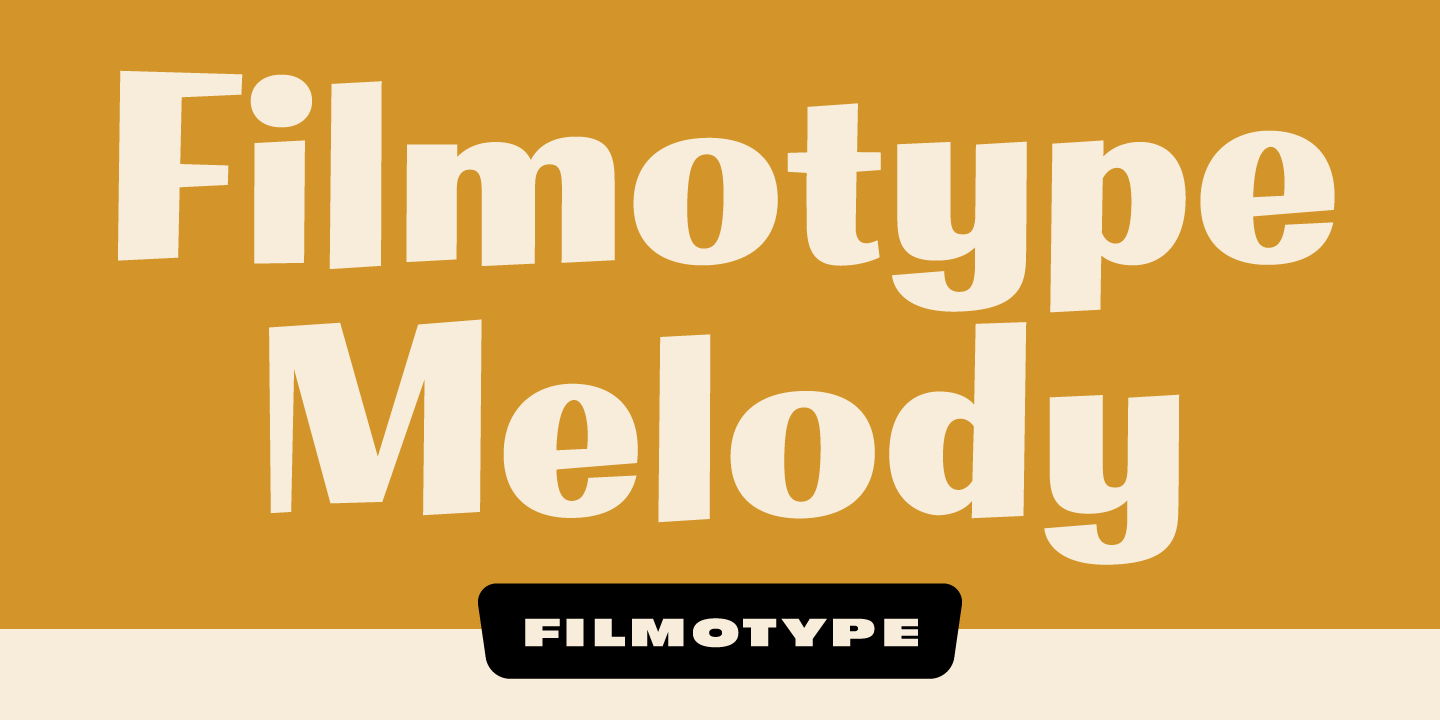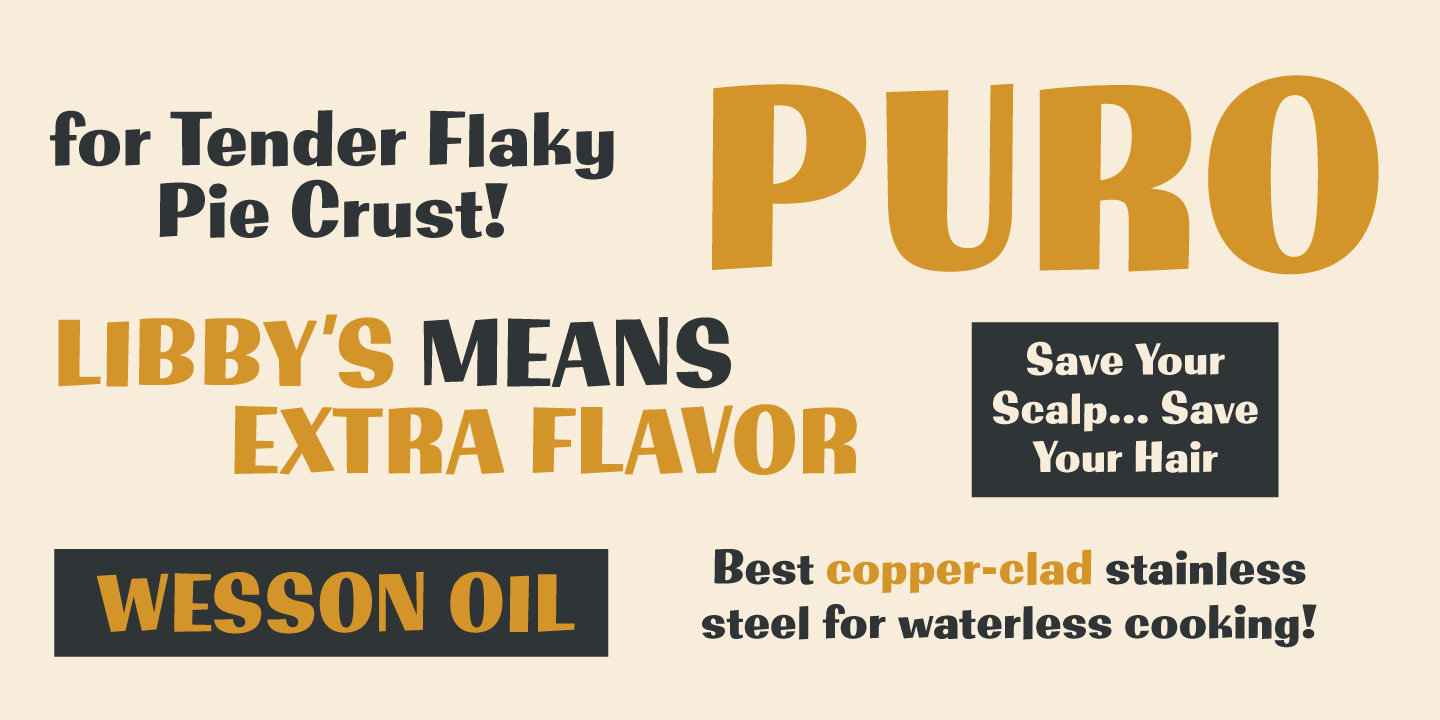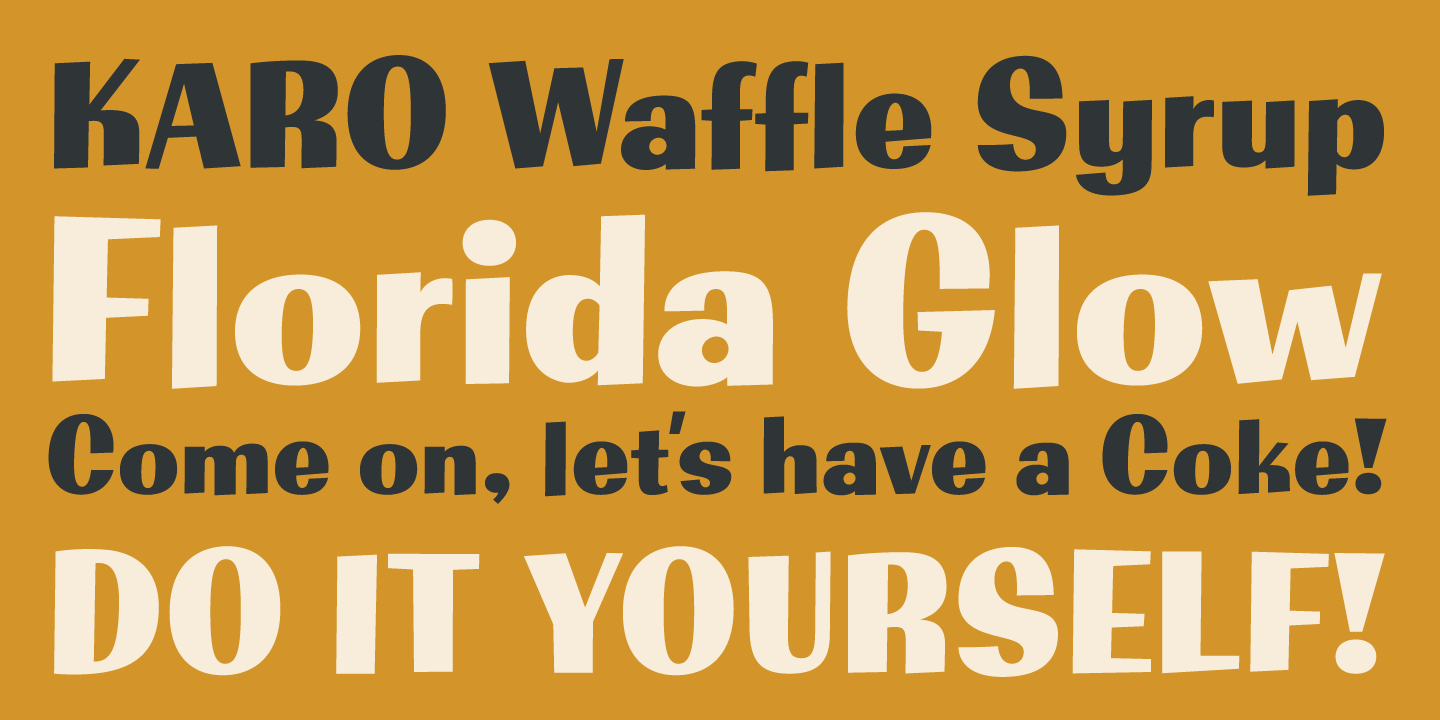
Filmotype Melody
Originally released in the late 1950s, Filmotype expanded it's Free Style typeface category with the introduction of Melody, an offbeat Googie era doo-wop typeface which was most frequently associated with music and entertainment lettering styles throughout the last 1950s and early 1960s just as Elvis and the Beatles were making the scene. To expand the versatility of this wonderful typeface, designer Rian Hughes developed and remastered new condensed and expanded versions of Melody called Melon and Mellow respectively.
Each weight of the Filmotype Melody family was developed from the original font filmstrips and includes a full international character compliment, automatic fractionals, ordinals, and a host of alternate characters in dynamic OpenType format.